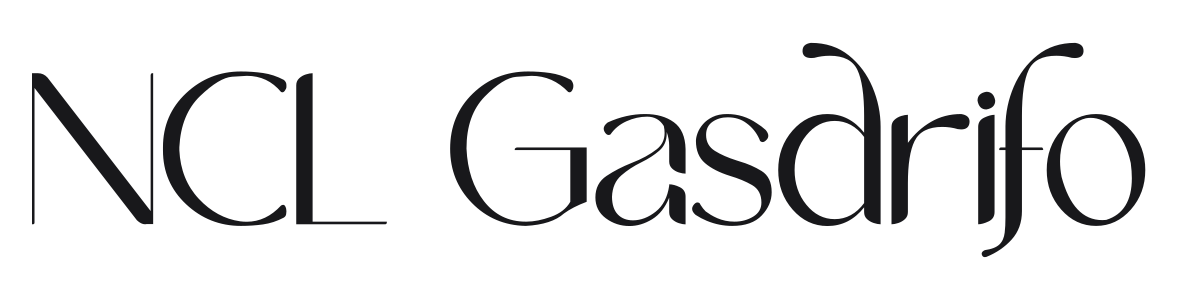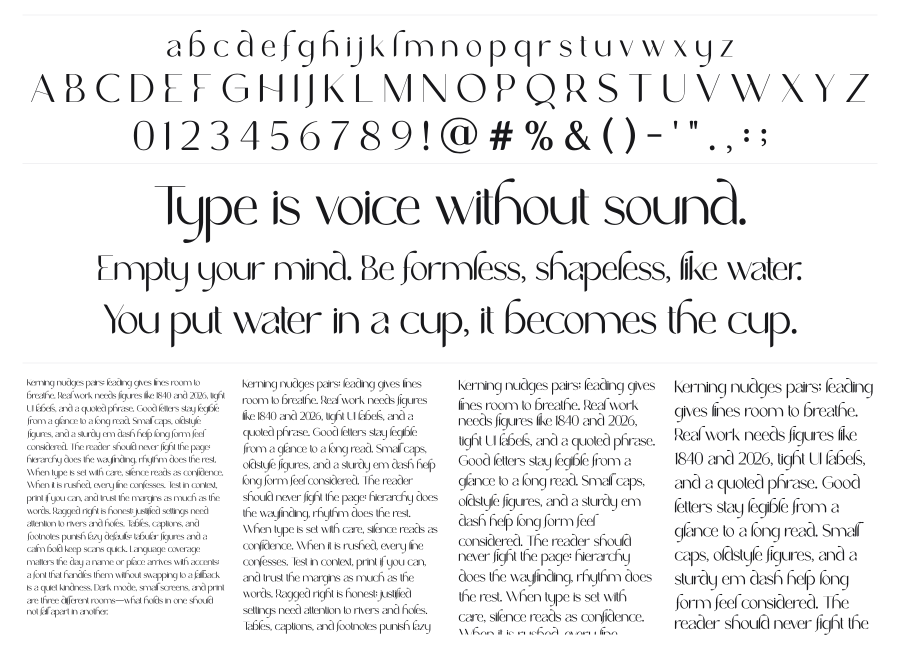
NCL Gasdrifo
NCL Gasdrifo is a high-contrast display sans with dramatic stroke variation and sweeping curved terminals that give it a distinctly Art Nouveau-meets-modern-fashion feel. The wide proportions and hairline horizontal strokes create an airy, editorial tension against the bold verticals. A natural choice for luxury branding, magazine headlines, and beauty packaging.